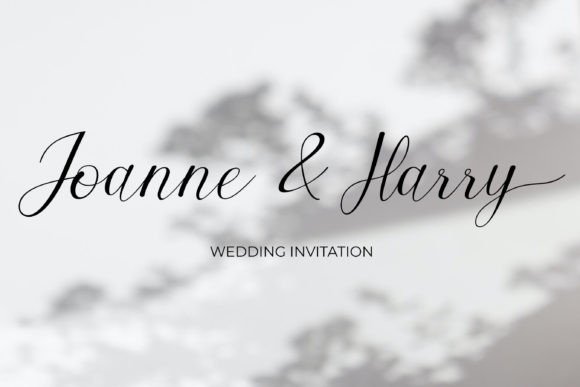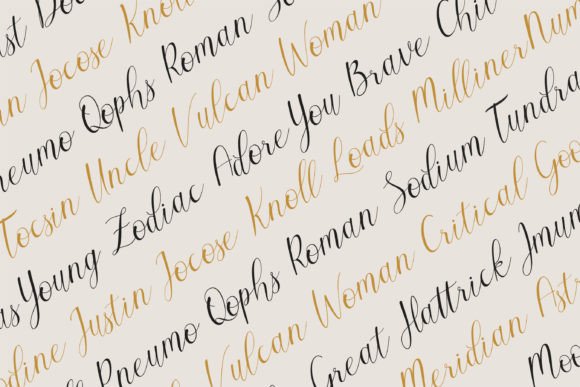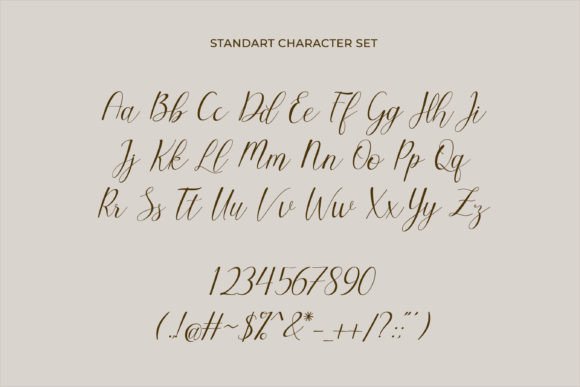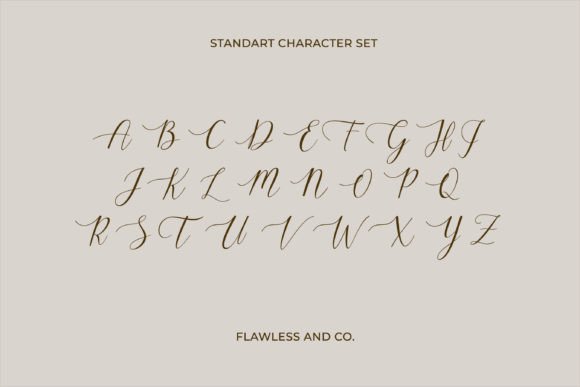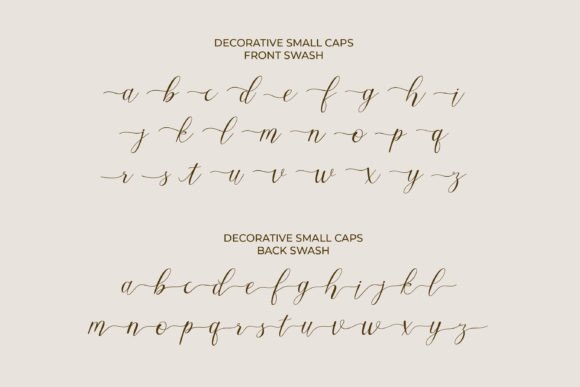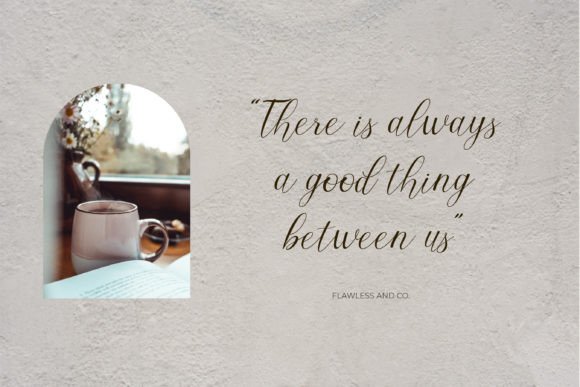
Discover the Whimsical Charm of the Chamomile Font
As I sat at my desk, surrounded by scattered papers and empty coffee cups, I found myself drawn to the soft glow of my computer screen. It was one of those moments where the world outside melted away, and all that mattered was the creative spark within me. I began to play with fonts, searching for the perfect combination to bring my design to life. And then, it happened – I stumbled upon the Chamomile Font, a modern masterpiece that captured my heart with its elegant calligraphy writing technique.
The Chamomile Font is more than just a pretty face; it’s a tool designed to evoke a sense of purity and romance in any design. Its PUA encoding allows for effortless access to all glyphs and swashes, giving designers the freedom to create unique and captivating visual stories. Whether you’re a seasoned pro or just starting out, this font is sure to become your new go-to companion for all your design needs.
- Unique Characteristics: Chamomile Font is a handwritten script font, featuring a soft and delicate touch, perfect for creating a calming and soothing atmosphere
Chamomile Font Review
Overall, I think the Chamomile Font is a lovely, soft addition to any design project. ✨ It has a calming and serene feel to it, which makes it perfect for projects that require a soothing atmosphere. ✨ The font is also highly legible, making it great for body text.
- ✨ Soft, calming aesthetic that promotes relaxation
- ✨ Highly legible, making it perfect for body text
- ✨ Works well in a variety of design projects, from wellness to education
Limitsations:
- ⚠️ May not be suitable for projects that require a bold or edgy look
- ⚠️ Can be a bit too soft for projects that require a lot of emphasis
- ⚠️ Limited character set and language support
Overall, I would recommend the Chamomile Font for projects that require a calming and soothing atmosphere. It’s a great choice for designers who want to create a peaceful and relaxing experience for their users.
Tips for Getting the Most Out of the Chamomile Font
The Chamomile Font is a elegant and sophisticated font that can add a touch of whimsy to your designs. Here are some tips for getting the most out of it:
- Use the Chamomile Font for headings and titles to add a touch of elegance.
- Pair the Chamomile Font with a bold font for a striking contrast.
- Use the Chamomile Font for quotes or captions to add a touch of whimsy.
The Chamomile Font is perfect for:
- Wedding